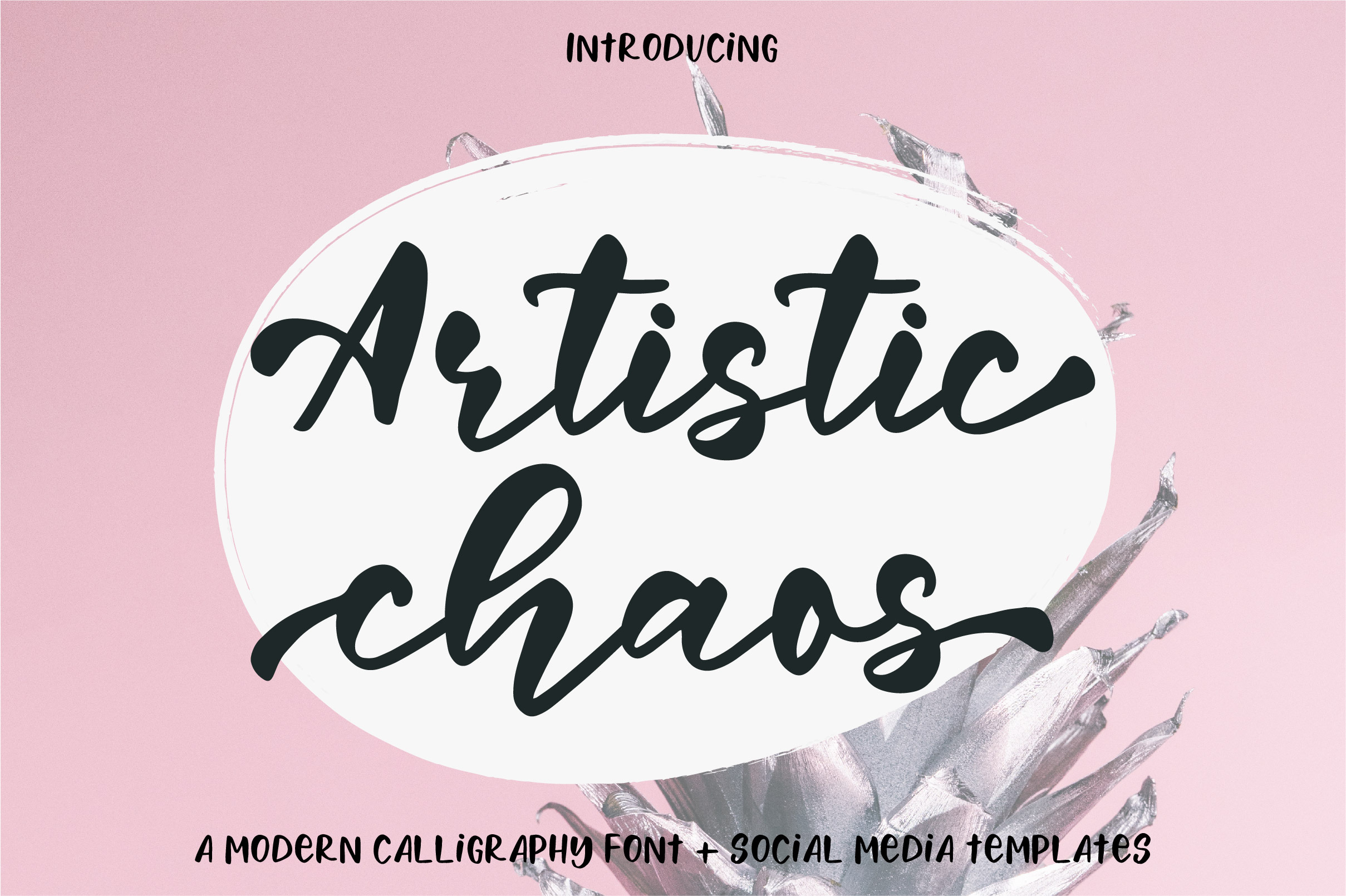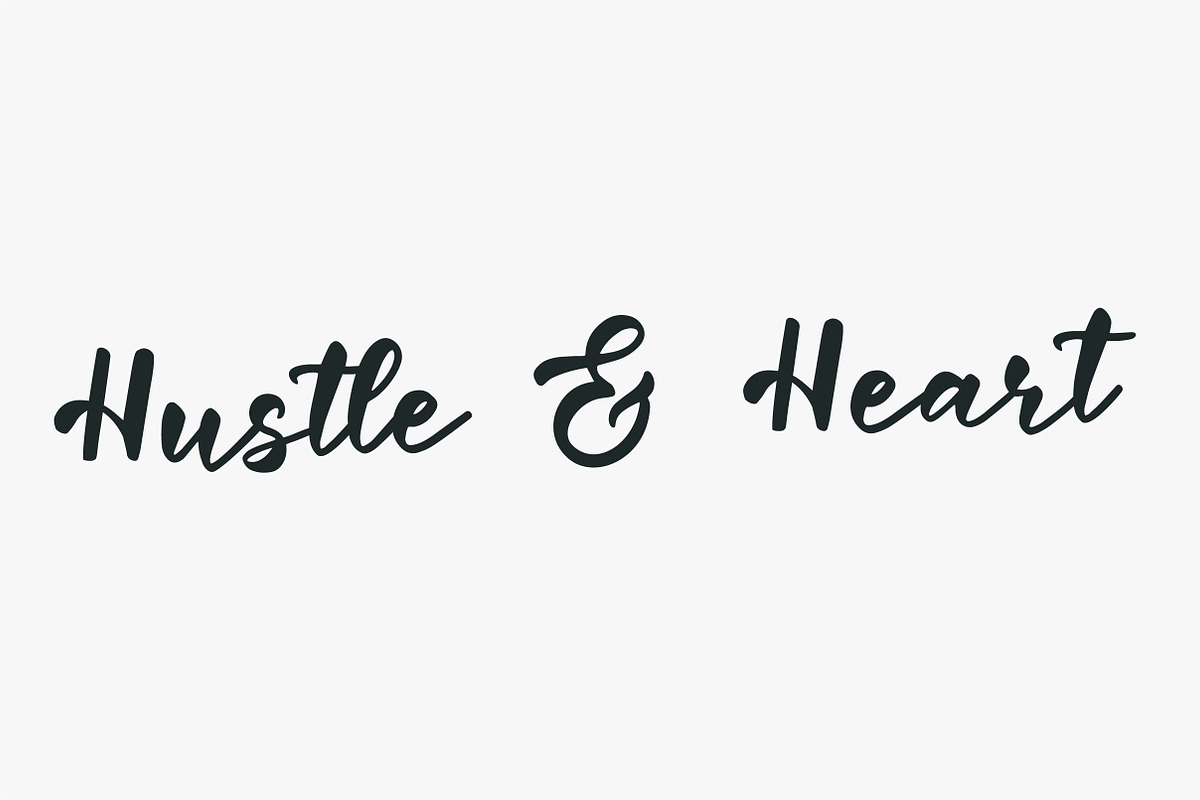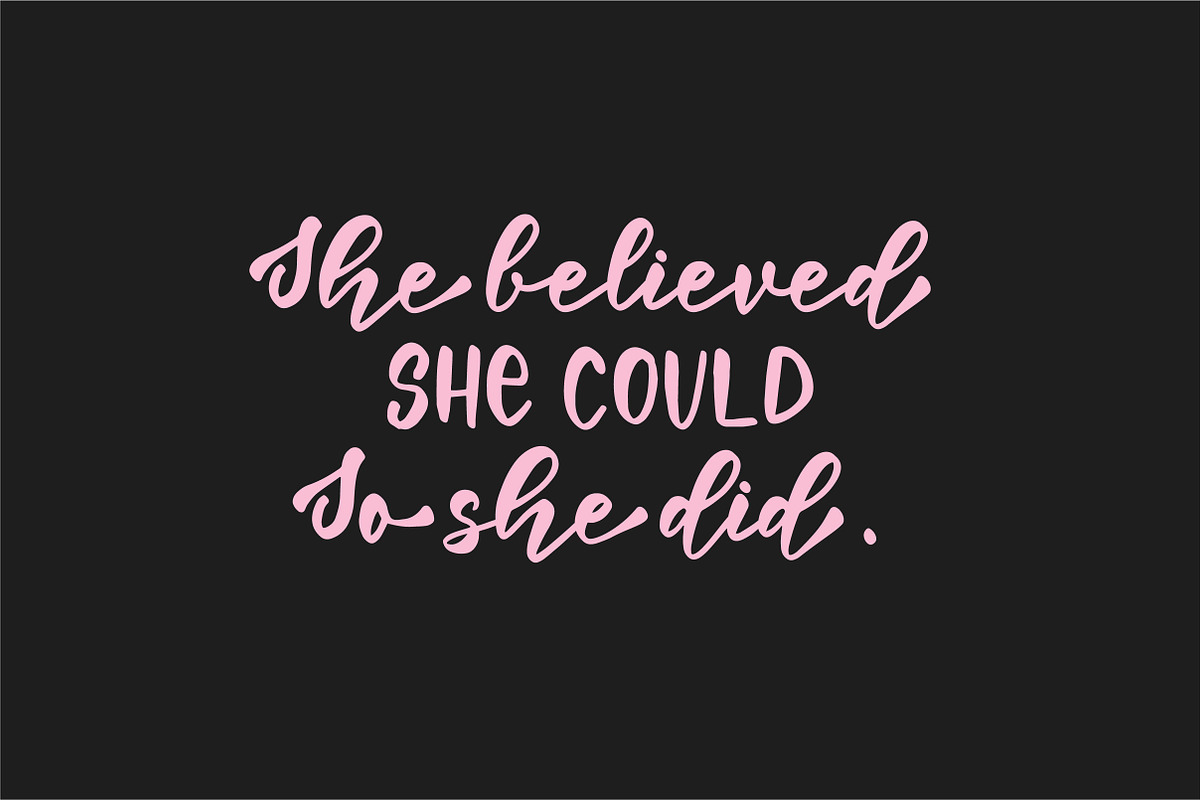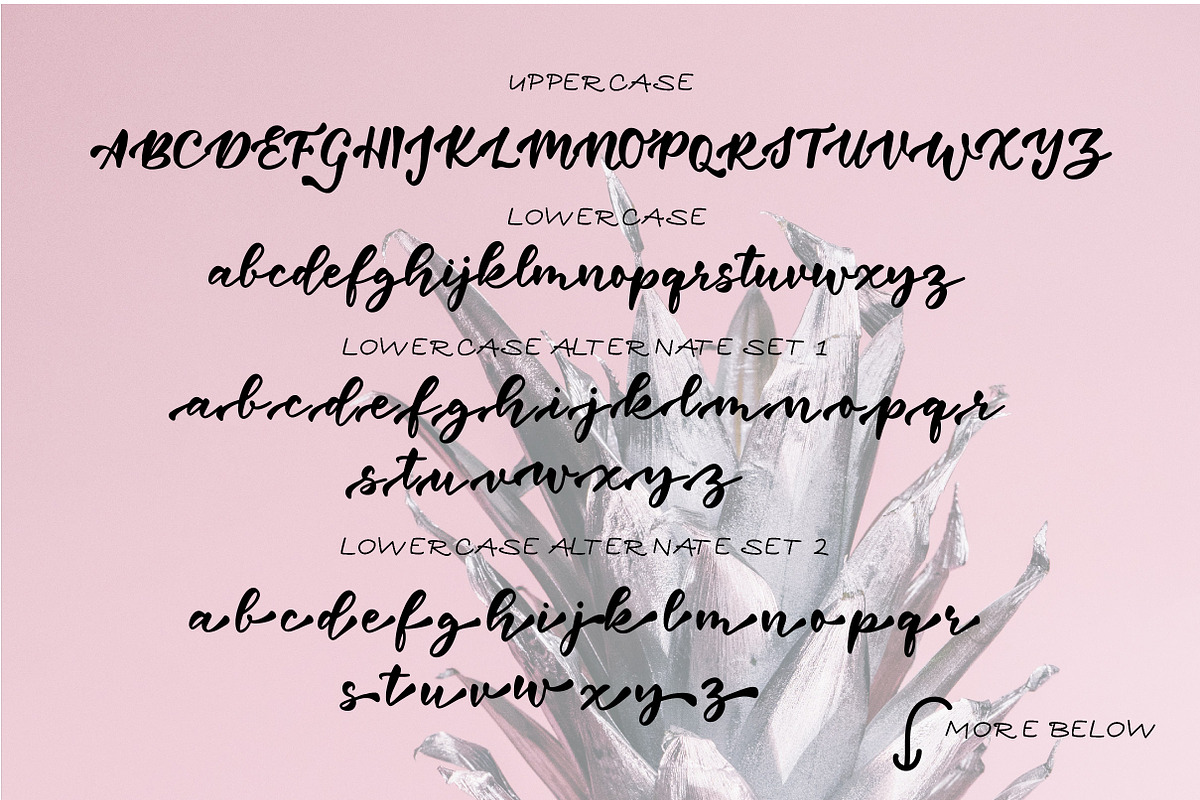
Artistic Chaos Font Duo + Bonus
Introducing Artistic chaos, a modern calligraphy font packed with alternates to make your design more stylized.
Artistic chaos is a font duo and comes with a script as well as a sans script. Also included is a bonus of 9 social media templates to give your social media feed a clean and feminine look.
It's perfect for all design projects ranging from branding to packaging to creating greeting cards, photo overlays, and so much more!